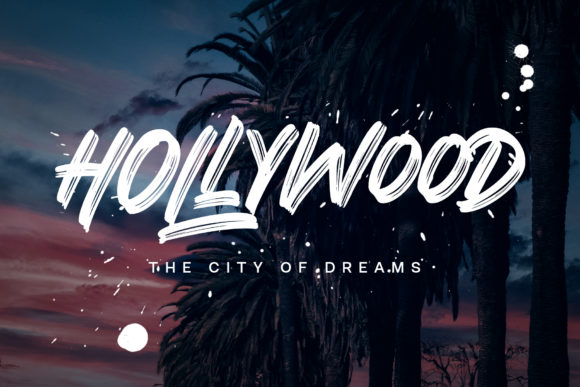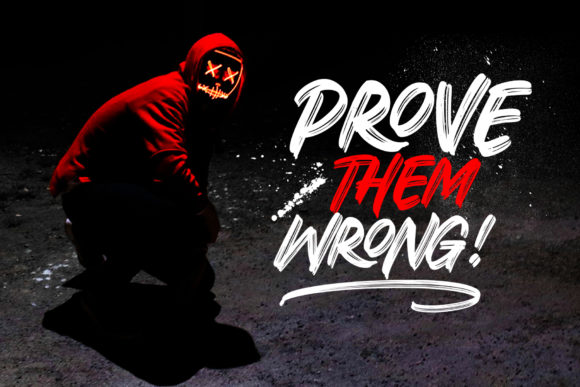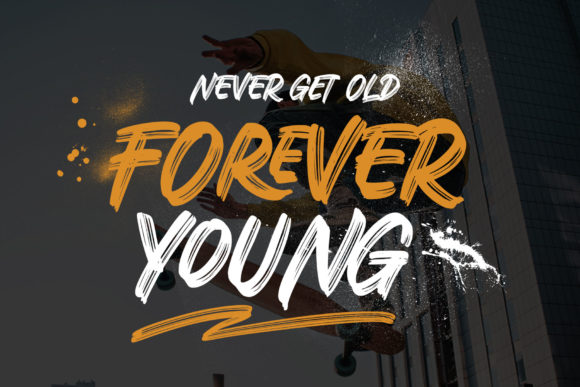
Introduction to Black Ravens Font
Black Ravens is a bold and chunky lettered display font.
👤 Author Arterfak Project
Add this font to your creative ideas and notice how it will make them stand out .
Key Features of Black Ravens Font
Why Choose Black Ravens Font?